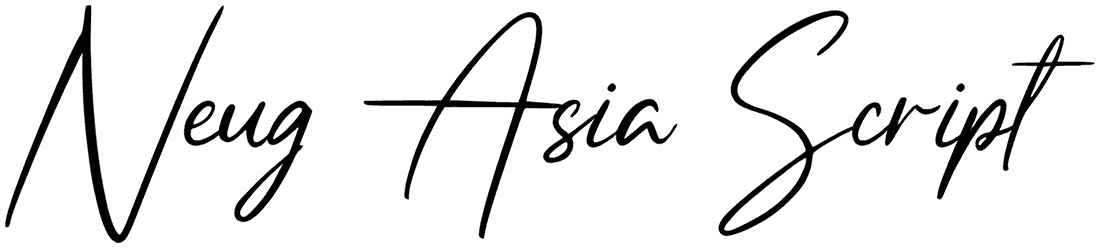
Neug Asia Script Font
Designed byAllouse Studio
Wanna try something unique for your words? Take a look at today’s font! All the characters in Neug Asia Script are designed with thin handwritten styles that give a soft and elegant sense to your presentation. You can use this handwritten font for decorative purposes and get creative with your looks. This calligraphy style is popular in classic novels.